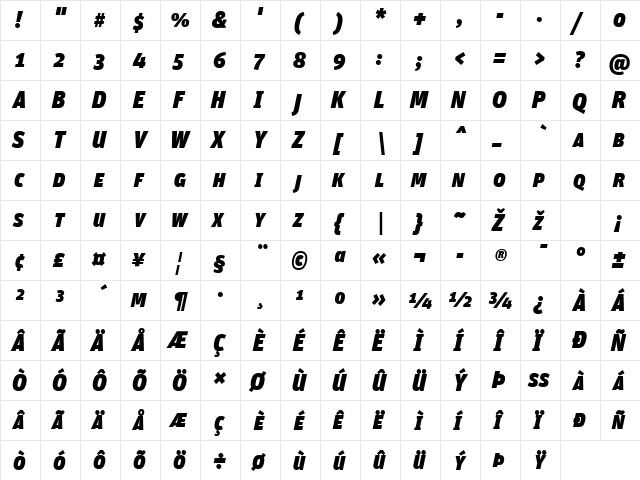
Unit-UltraSCItalic Regular
| Designer | Erik Spiekermann, Christian Schwartz |
Design Context for Unit-UltraSCItalic Typeface
Unit-UltraSCItalic is a composed and adaptable typeface that performs quietly and consistently across a wide range of design contexts. Its italic angle brings a sense of urgency and motion to the letterforms.